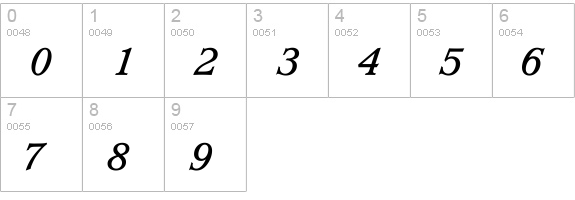
WaverlyMediumItalicTab Font Details
Introducing WaverlyMediumItalicTab, a captivating font that effortlessly combines elegance with a touch of modernity. Its sleek and stylish design makes it the perfect choice for projects that require a touch of sophistication. Featuring a medium weight with italicized slant, WaverlyMediumItalicTab exudes a sense of refinement and subtle flair. Its carefully crafted letterforms are meticulously balanced, ensuring exceptional legibility across various mediums and sizes. This versatile font is ideal for a wide range of design applications, from editorial layouts to branding projects and everything in between. Whether you're creating striking headlines or adding a touch of class to your graphic designs, WaverlyMediumItalicTab will undoubtedly elevate your work to new heights. But what makes WaverlyMediumItalicTab even more enticing is the fact that it is freely available to download at FontsMarket.com. This means that you can effortlessly incorporate this stunning font into your projects without any cost or hassle. With just a few clicks, you can infuse your designs with a touch of elegance, all while staying within your budget. So why wait? Experience the allure of WaverlyMediumItalicTab for yourself and discover the endless creative possibilities it offers. Download this remarkable font from FontsMarket.com today and embark on a journey of design excellence.